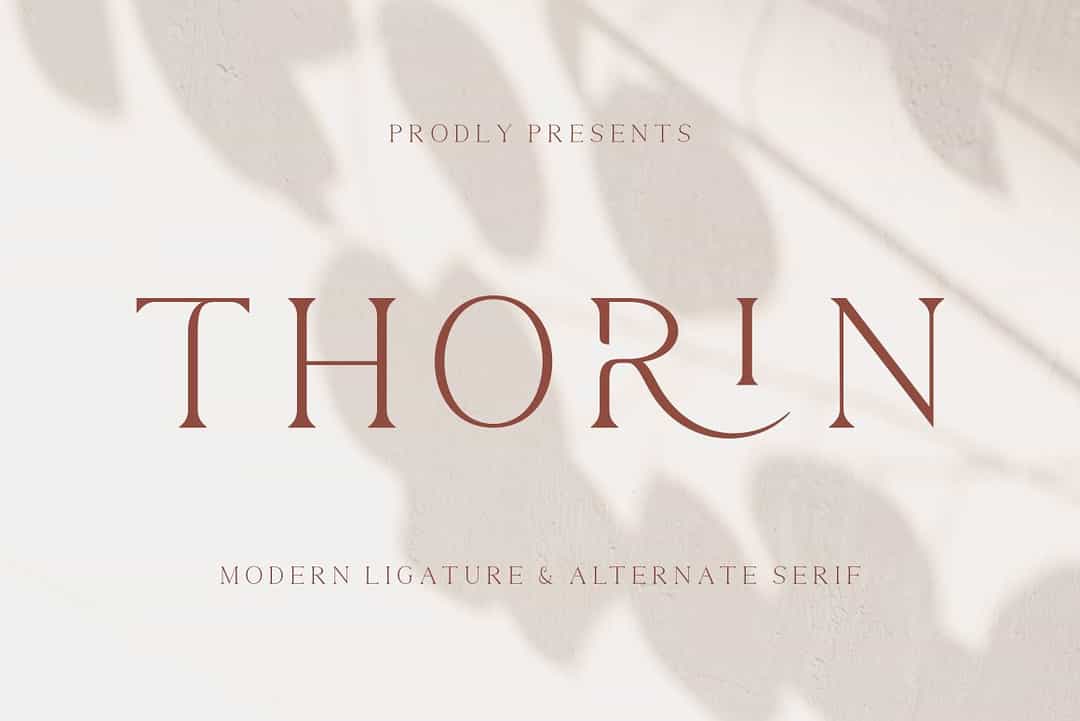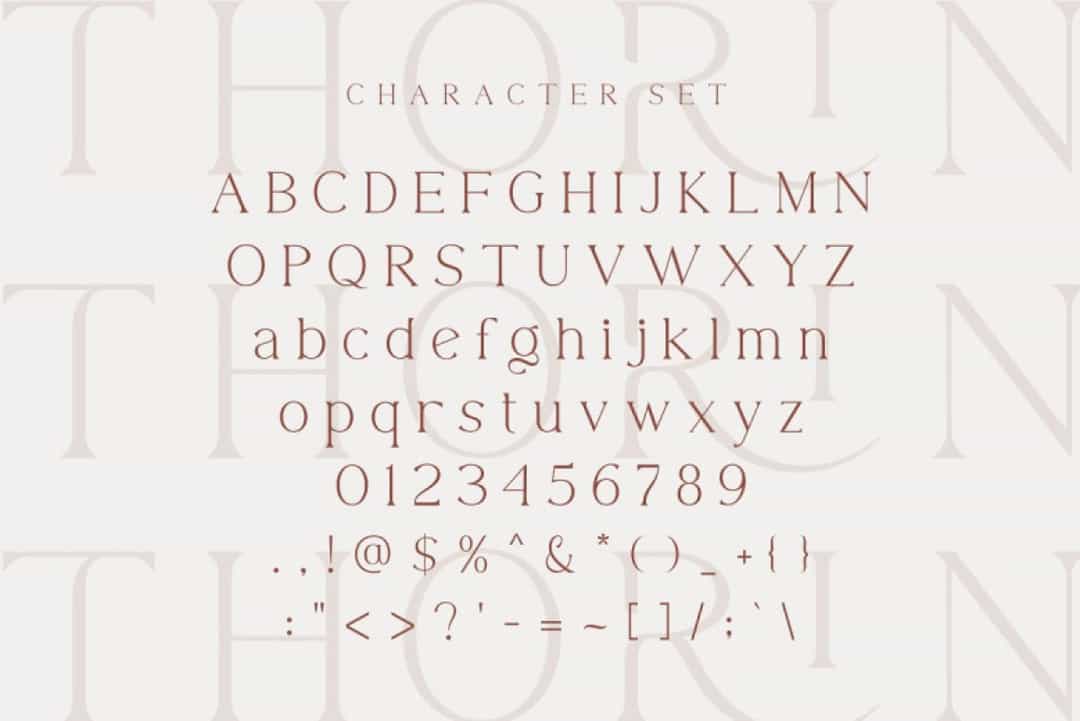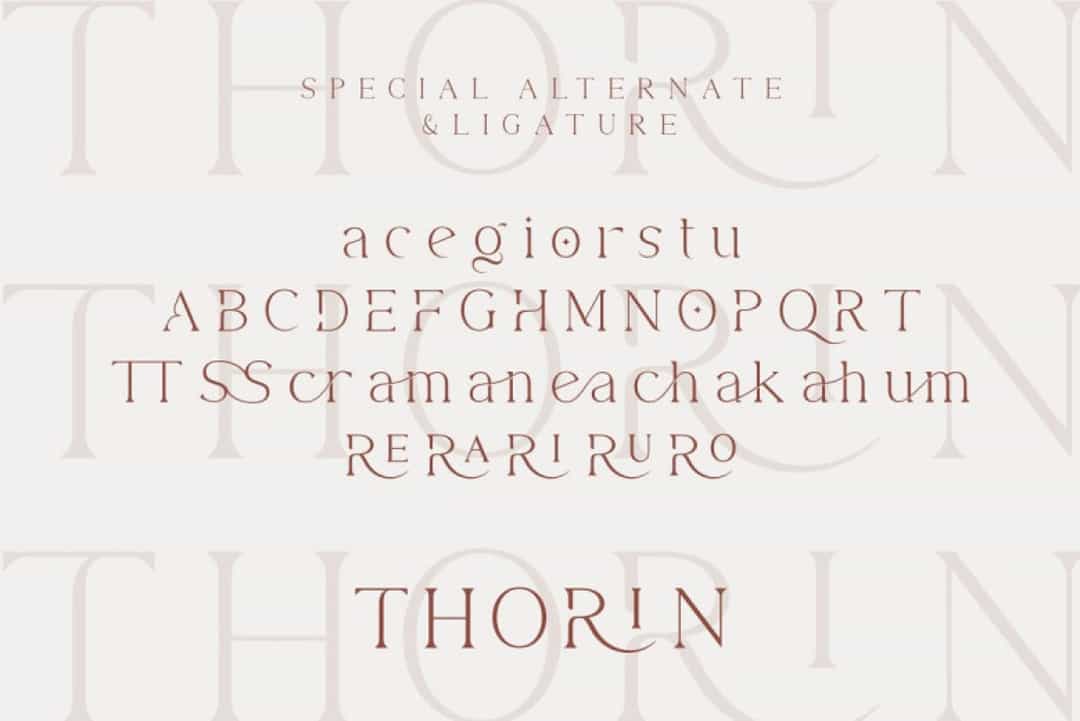
Discover Thorin Font, part of the Serif collection—a versatile and unique font perfect for adding a personal touch to your projects. Download it for free and enjoy crafting designs with style, from invitations to social media posts. This font is available exclusively for personal use, giving you the freedom to create without limits. Unlock your creativity with Thorin Font today!
Thorin Contemporary Serif Font, branding font boho font, canva typeface, proscreate font Cricut fonts and logo fonts are our latest creation – contemporary serif font with multiple alternative fonts and ligatures, multilingual support and modern bohemian design aesthetic – ideal for branding business magazines logos etc.